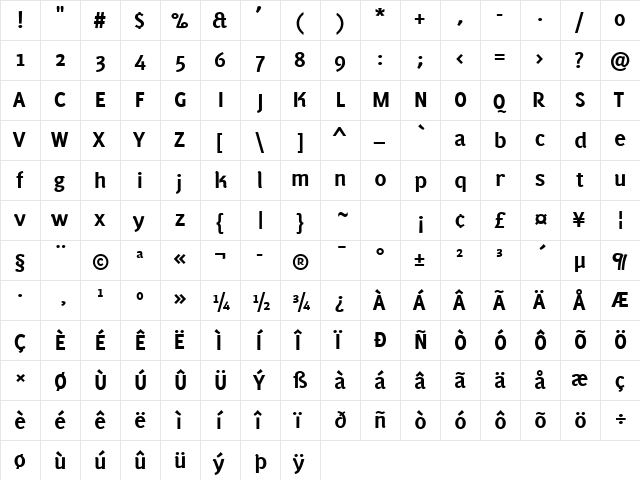
PF Muse Bold
Bold · Vangelis Karageorgos Vangelis Karageorgos ·
Design Context for PF Muse Typeface
PF Muse offers clean, dependable letterforms without strong stylistic allegiance, making it a practical choice for designers who need flexibility. The heavy weight commands attention and anchors typographic hierarchies.